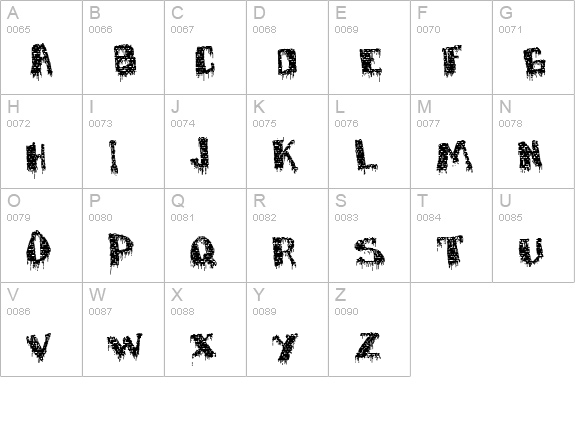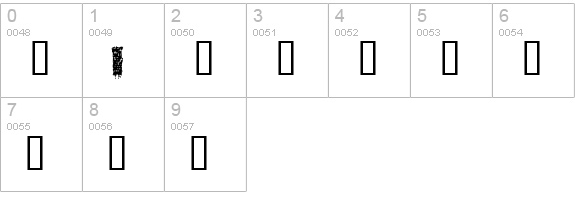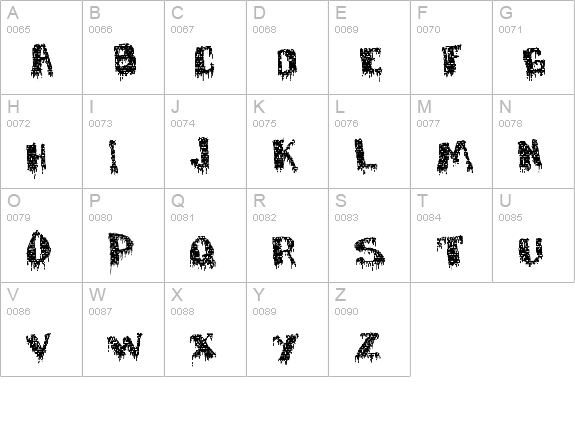
deFaced Font Details
deFaced font is a unique and eye-catching typeface that exudes a sense of creativity and individuality. Its bold and edgy design makes it perfect for projects that require a modern and impactful look. With its striking characters and distinctive style, deFaced font is sure to make a statement and capture the attention of viewers. The best part is that deFaced font is available for free! You can easily download this versatile font at FontsMarket.com and start using it in your designs right away. Whether you're working on a poster, logo, website, or any other creative project, deFaced font is a fantastic choice that will add a touch of originality and flair. Don't miss out on this fantastic opportunity to enhance your designs with the stunning deFaced font - get it for free today at FontsMarket.com!